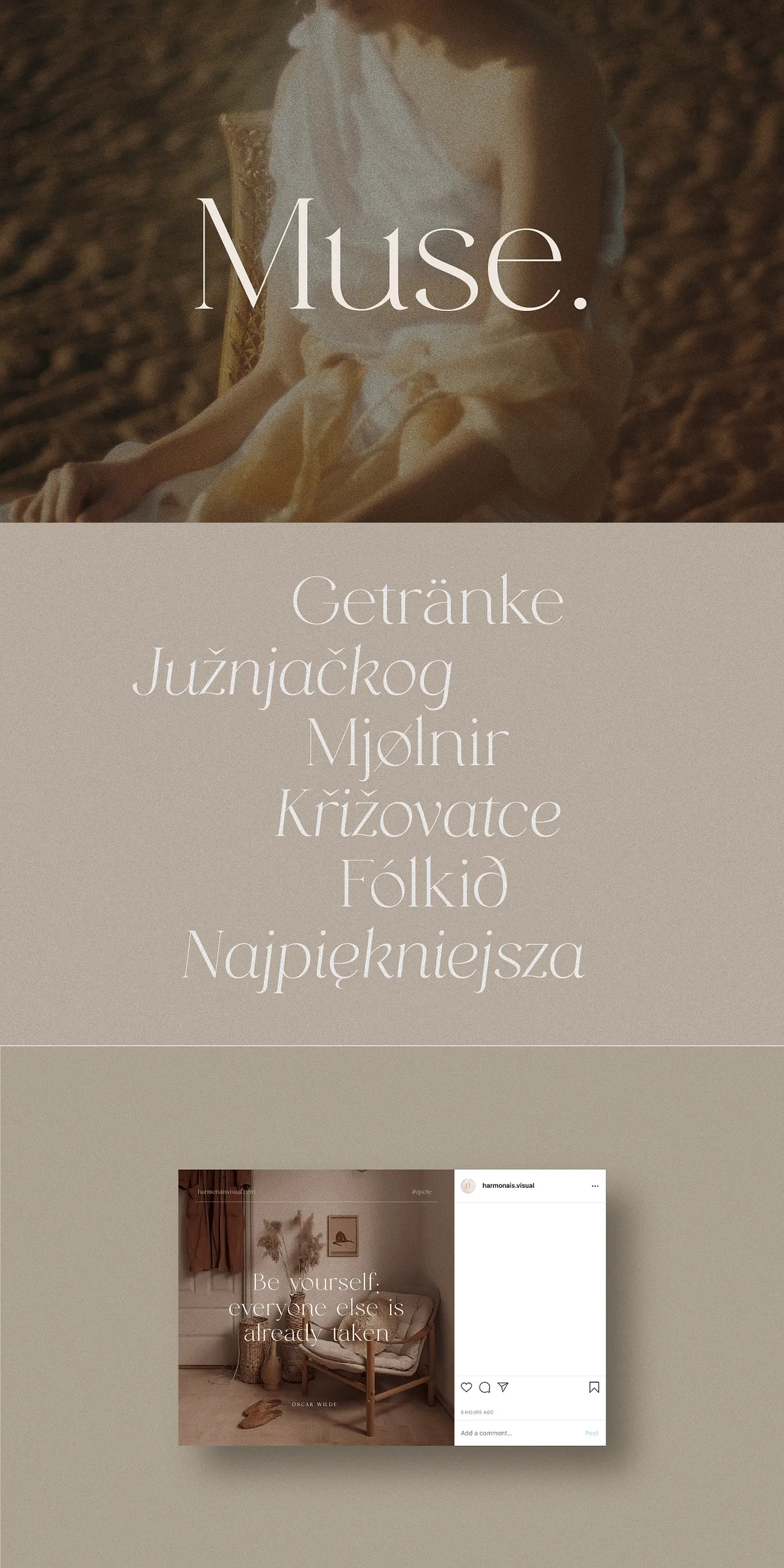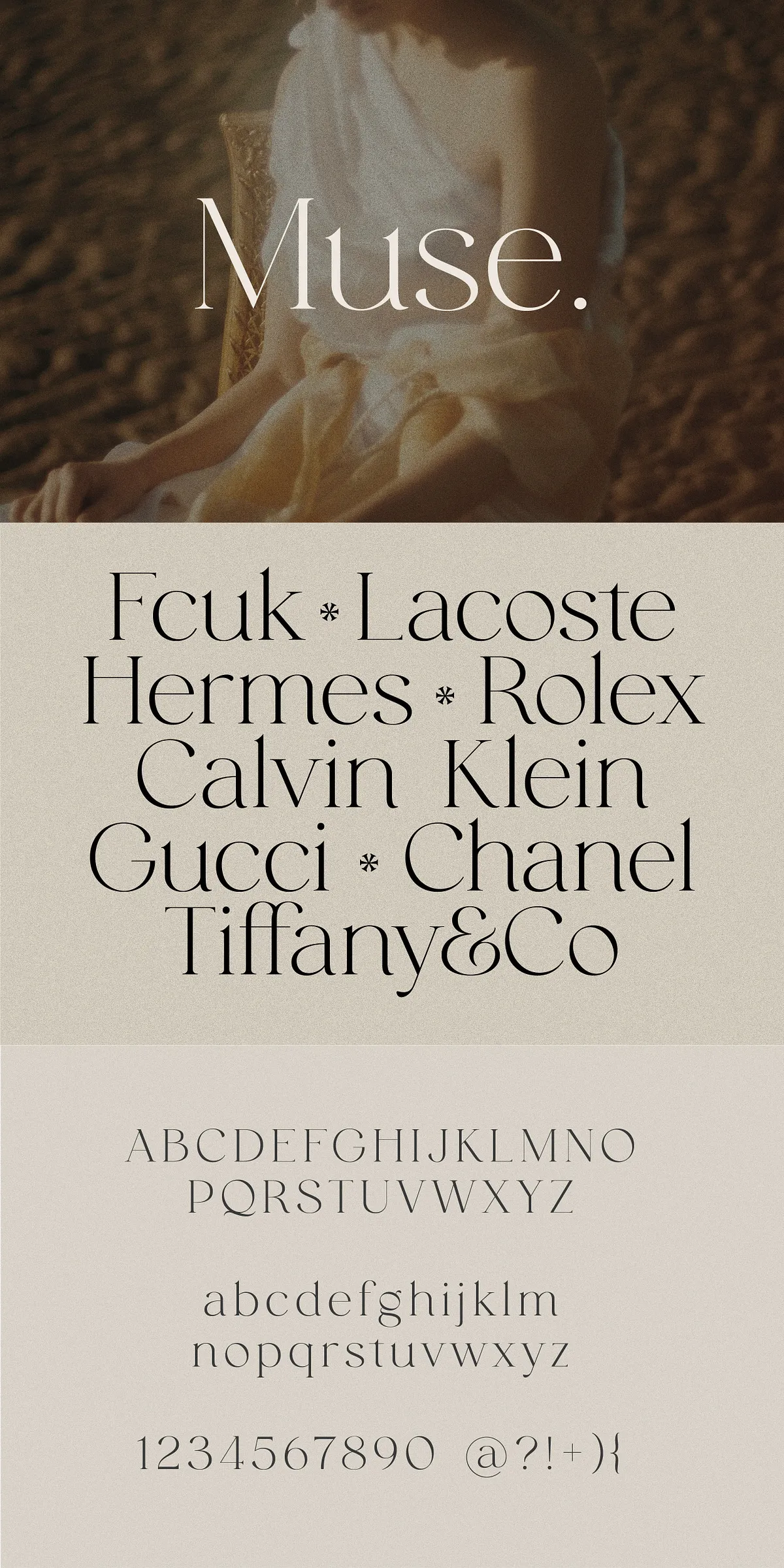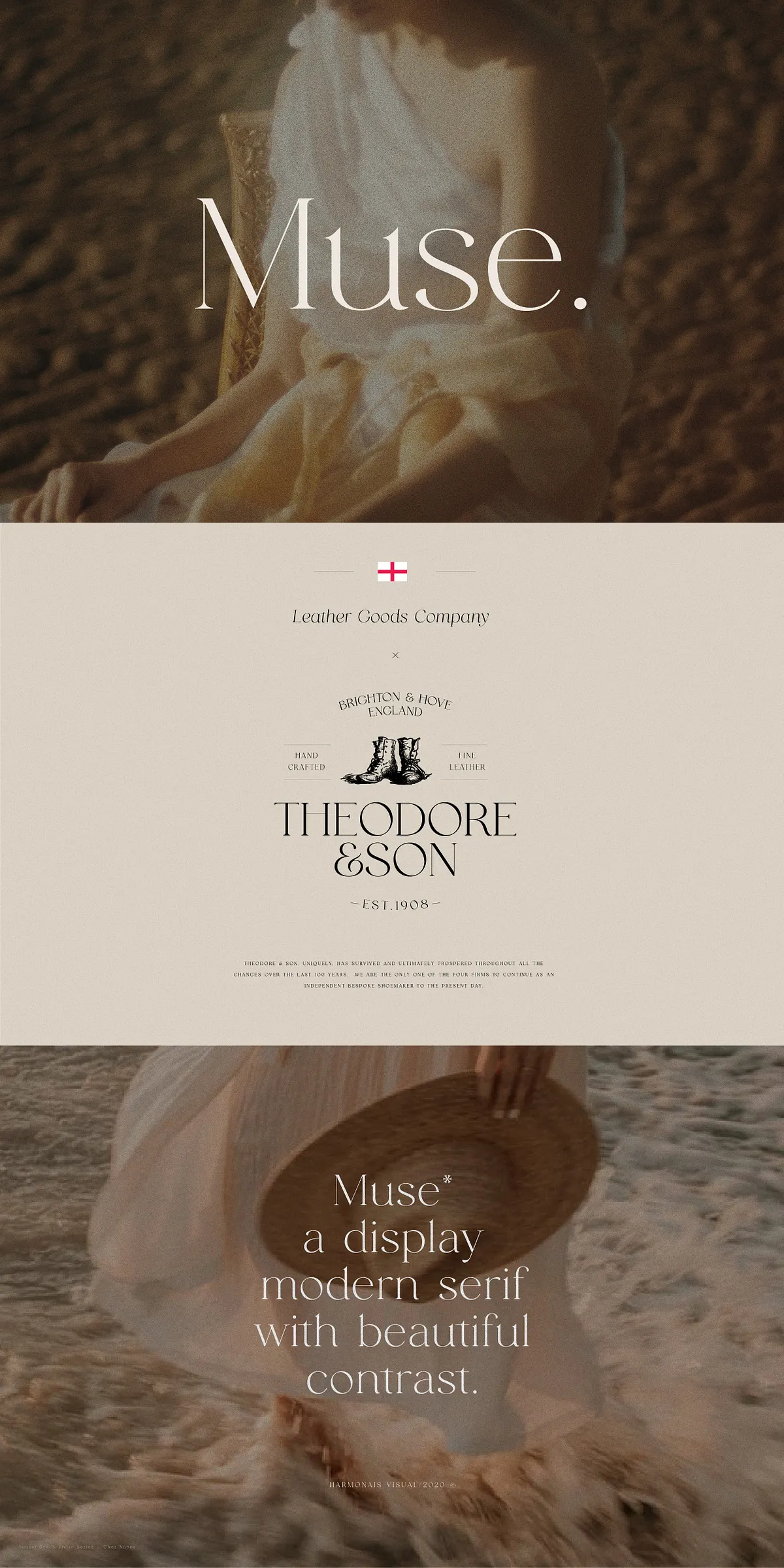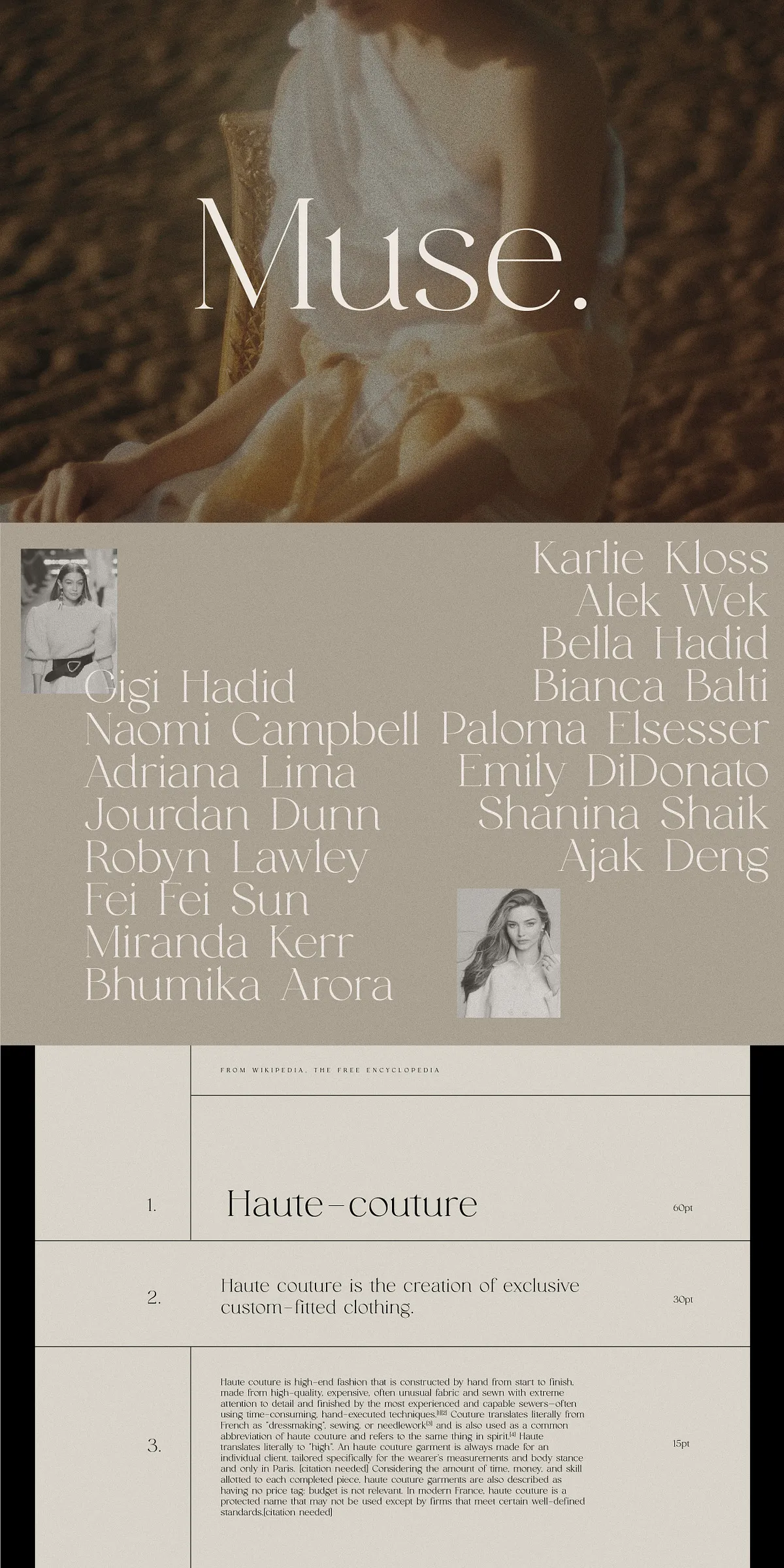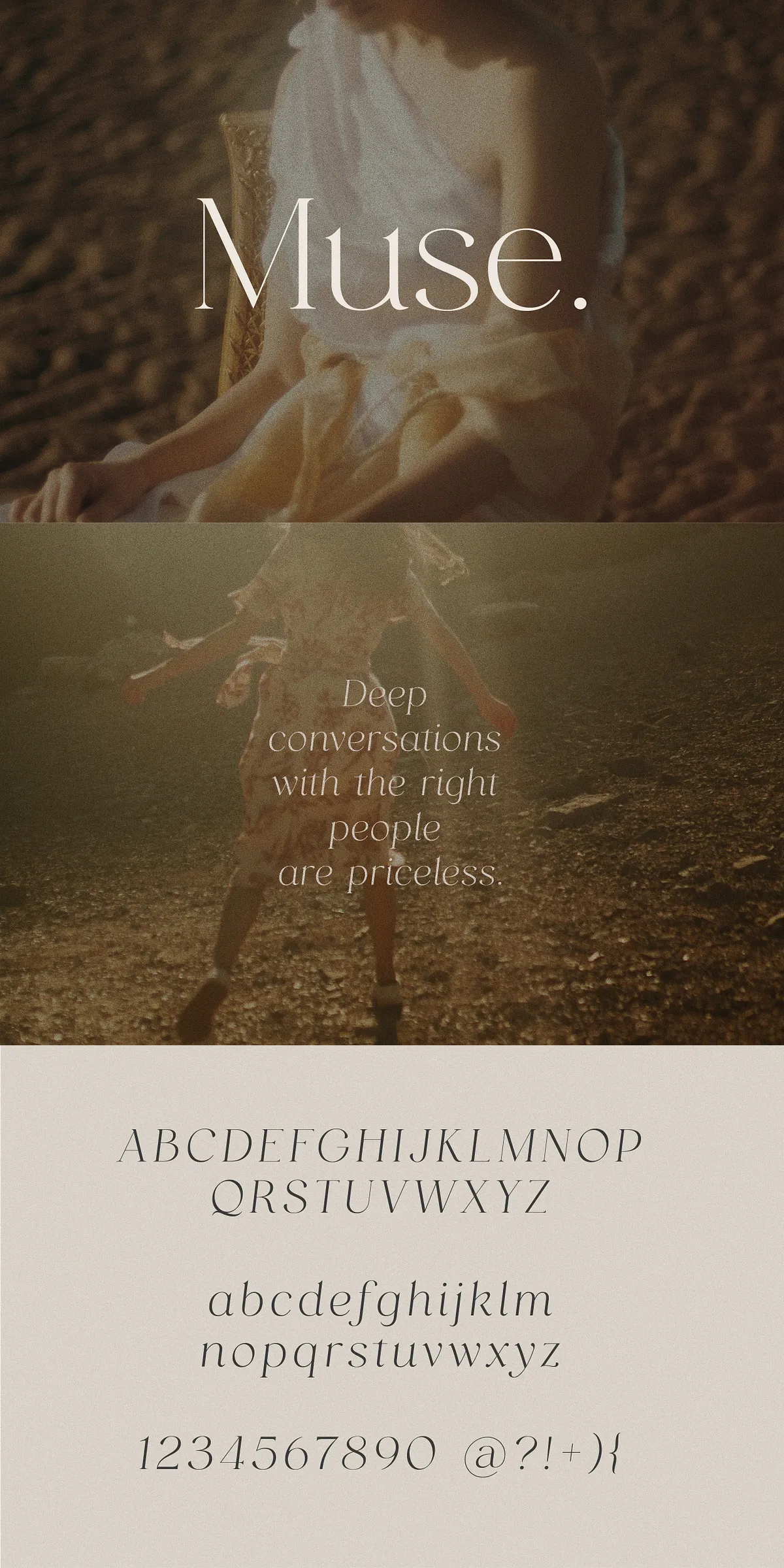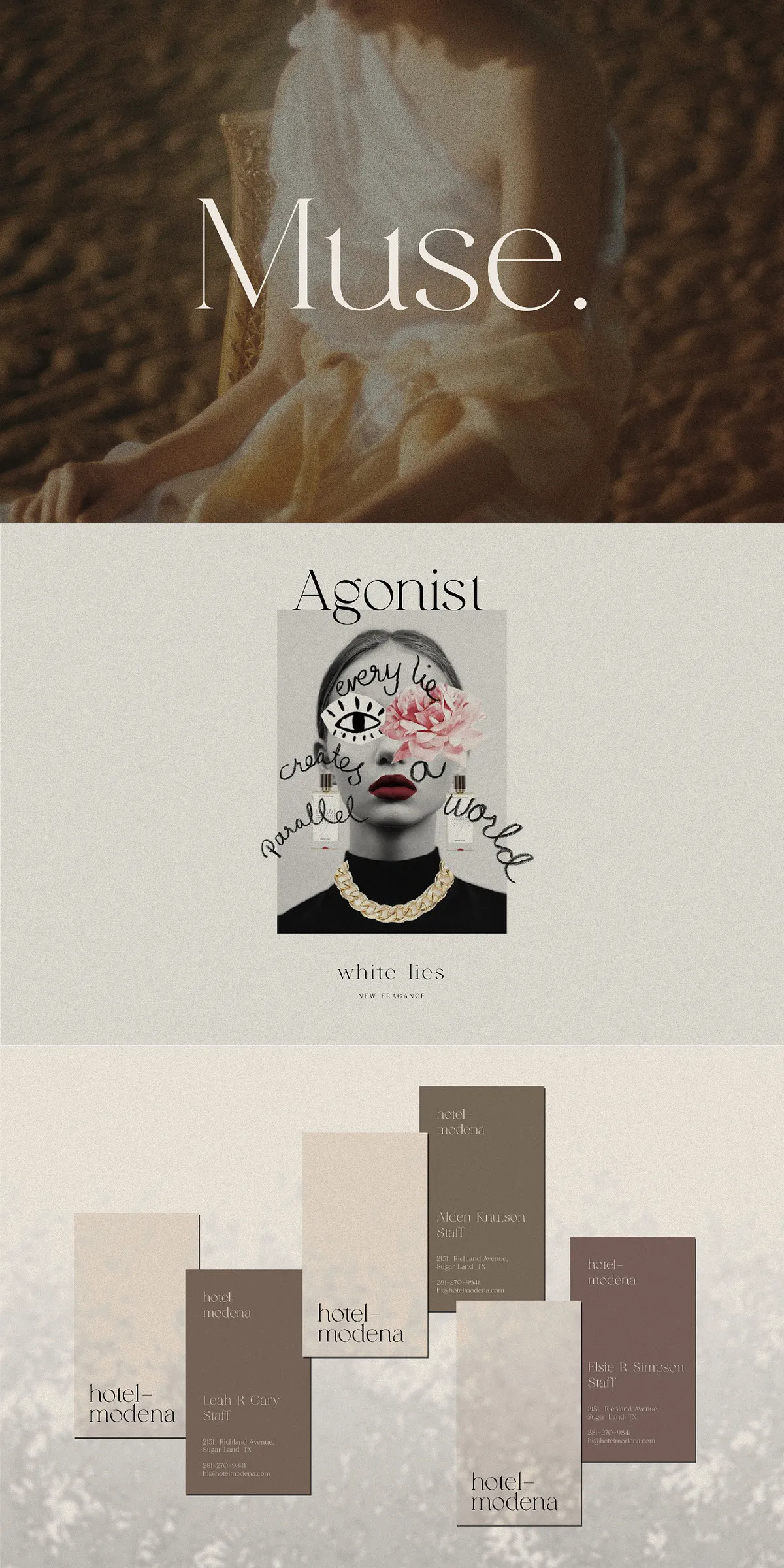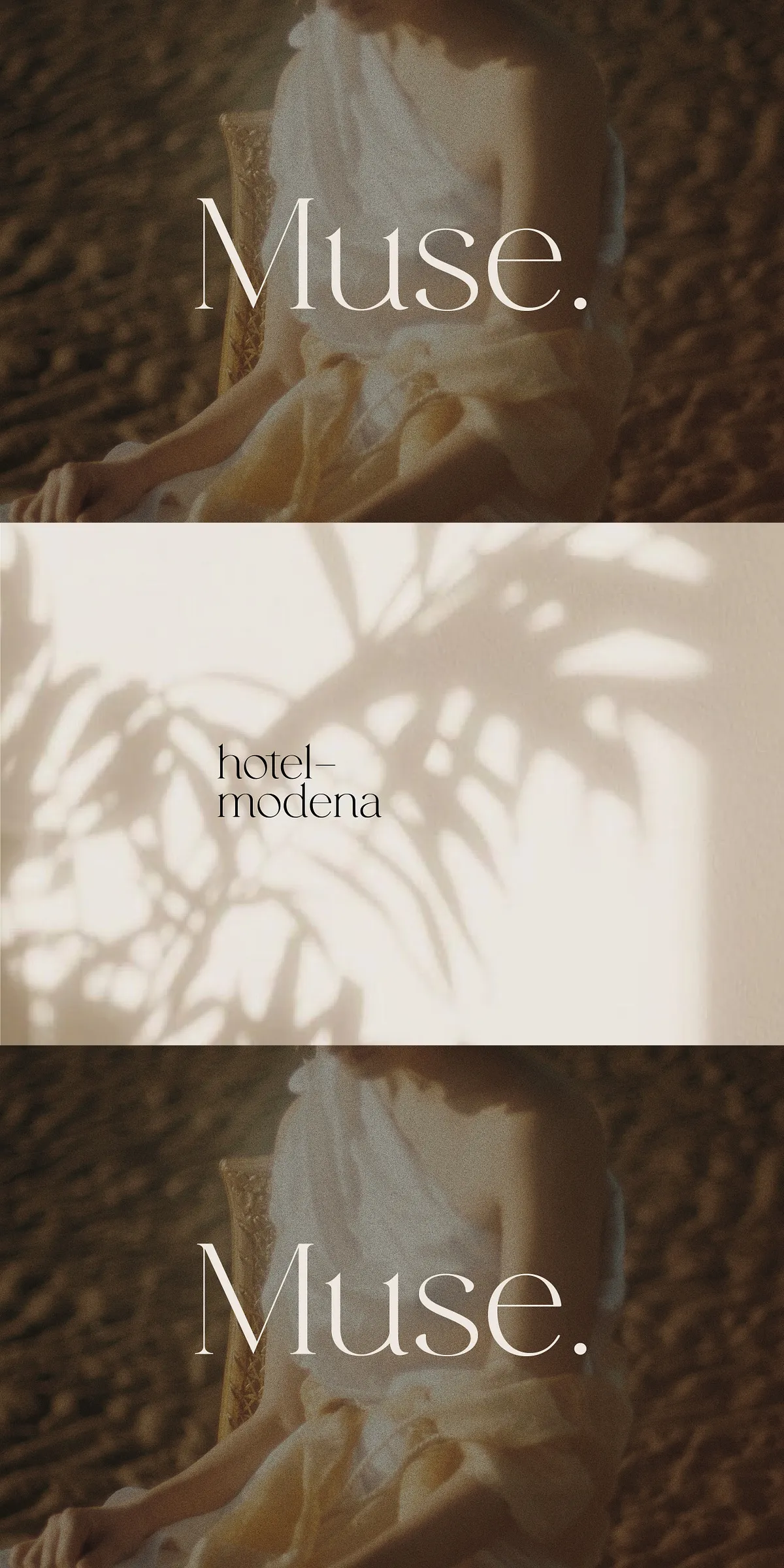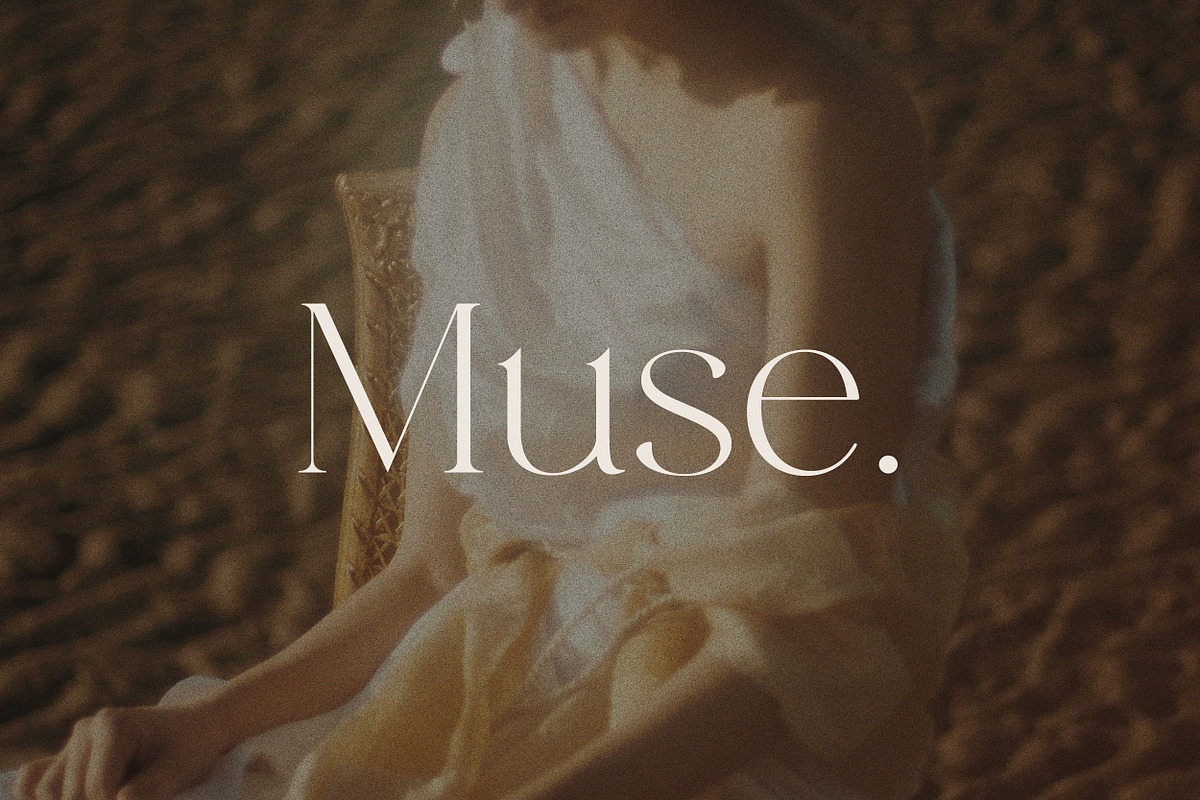
Muse is a sophisticated and stylish modern serif typeface crafted to elevate fashion-themed projects with its refined aesthetic and striking contrast. Designed with elegance and versatility in mind, Muse offers designers a powerful tool to create captivating logos, titles, magazine layouts, and lifestyle branding that demand attention and convey a sense of luxury.
Distinctive Design with Beautiful Contrast
Muse stands out through its carefully balanced contrast between thick and thin strokes, which adds depth and visual interest to every letterform. This contrast not only enhances readability but also imbues the typeface with a dynamic and modern feel that perfectly suits contemporary design trends. The clean, sharp serifs and well-proportioned shapes contribute to a polished and chic appearance, making Muse an excellent choice for projects that require a touch of sophistication.
Expanded Versatility with Muse Italic
To further enhance its usability, Muse now includes a newly added Muse Italic style, expanding the typographic possibilities for designers. This italic version complements the original upright style with graceful slants and fluid curves, allowing for expressive emphasis and elegant typographic hierarchy. The addition of Muse Italic provides greater flexibility in creating diverse and engaging layouts without compromising the font’s cohesive aesthetic.
Perfect for Fashion and Lifestyle Branding
Muse is specifically tailored for fashion and lifestyle projects, where style and visual impact are paramount. Its chic and elegant character makes it ideal for:
- Logos: Craft memorable and luxurious brand identities that stand out in competitive markets.
- Titles and Headlines: Create bold, eye-catching headlines that draw readers into editorial content.
- Magazine Layouts: Enhance editorial designs with a refined serif that balances beauty and readability.
- Lifestyle Branding: Develop cohesive visual identities for lifestyle products, boutiques, and creative ventures.
Why Choose Muse?
Choosing Muse means embracing a typeface that combines modern elegance with practical versatility. Its beautiful contrast and chic design make it a standout choice for projects that require a refined and fashionable typographic voice. Whether you are designing a high-end brand, an editorial spread, or lifestyle marketing materials, Muse delivers the sophistication and style needed to make a lasting impression.